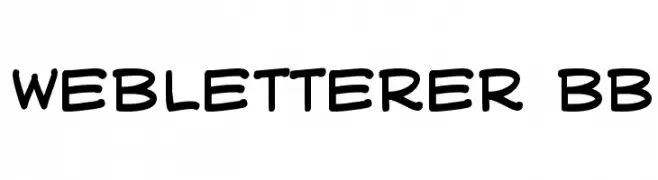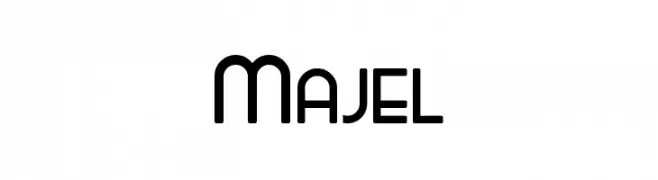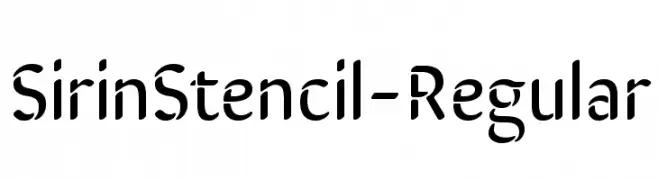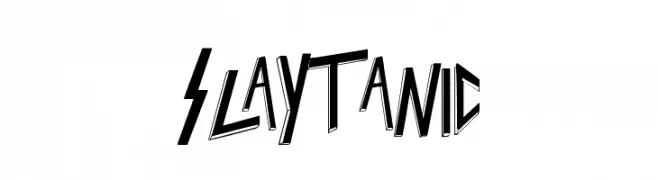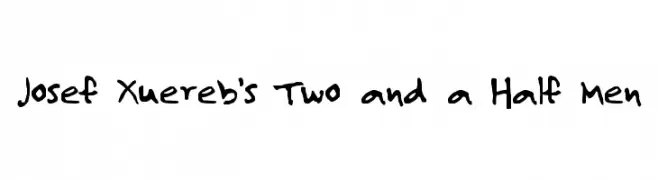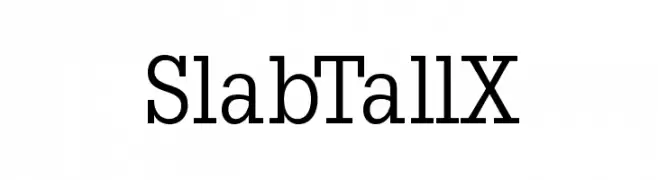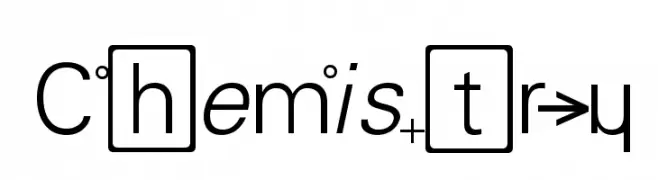
A playful, bold handwritten font with a casual and friendly style.
A modern, geometric font with clean lines and uniform stroke width.
A modern stencil font with geometric lines and an industrial feel.
A bold, edgy font with sharp angles and a rebellious style.
A tall, slab serif font with a bold and structured appearance.
A bold, shadowed font with a three-dimensional effect, perfect for impactful headlines.
A modern, geometric sans-serif font with scientific symbols and arrows.